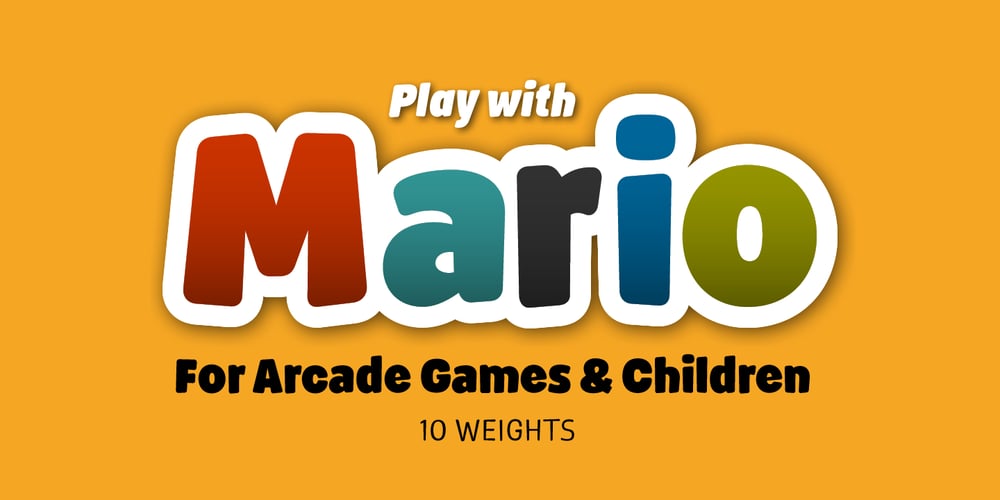
Mario Font Family was designed by Josep Patau and published by Tipo Pèpel. Mario contains 10 styles and family package options. Once upon a time, Mestre Patau, the «Black» magician, concerned about children´s typefaces historical ugliness, decided to settle the matter and using his vector powers, made letters embellished to be used in that stories so that they were according with the great genius all children have inside. Well done face but happy, goodness is not incompatible with joy. A solid construction, smooth, rounded, vibrant, generous curves and even more generous x-height and general proportions, give to the letter the vitality and freshness needed for use in projects where formality is not a requirement. Naughty but welldone, although not heeding the overshoots or the formal alignments, no symmetry in the horns is, despite this, or because of it, a fresh, cheerful but perfectly legible type. A full menu of freshness in your tales and stories!